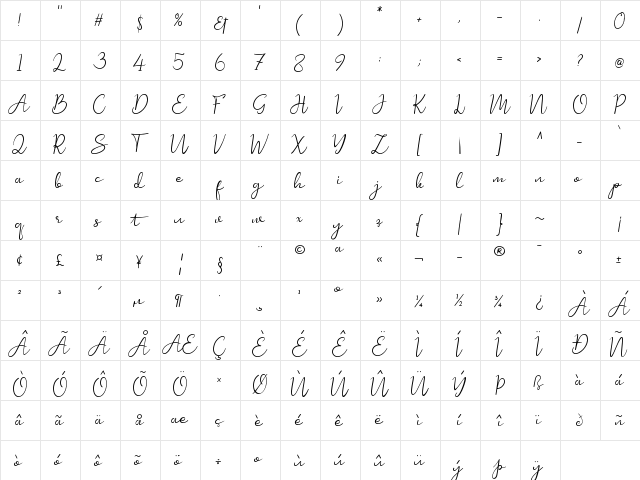
QueenofEternity Regular
| Designer | Tri Kuncoro |
Design Context for QueenofEternity Typeface
QueenofEternity is a composed and adaptable typeface that performs quietly and consistently across a wide range of design contexts.